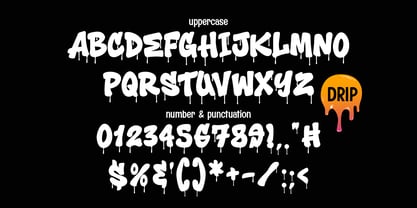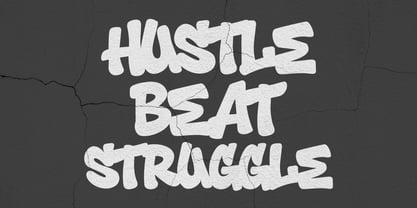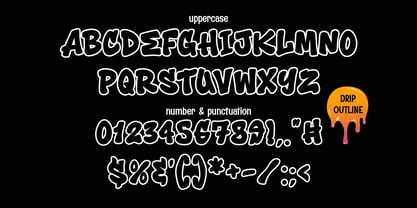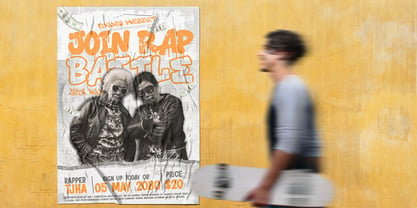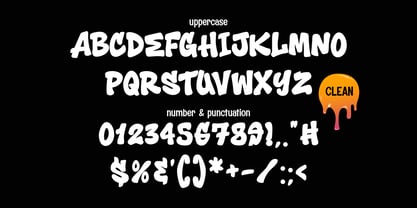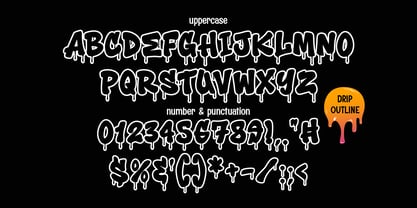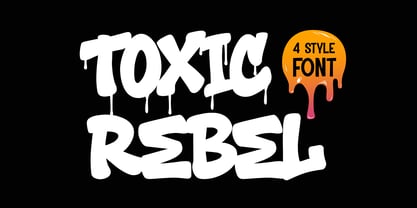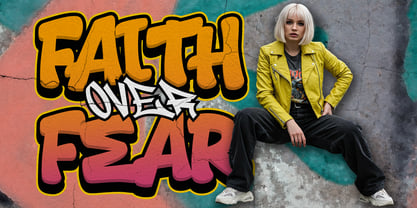
Toxic Rebel
by Sipanji21
The Toxic Rebel Font Family was designed by Sipanji and published by Sipanji21. Toxic Rebel contains 4 styles and family package options. More about this family
Toxic Rebel is a bold graffiti creation that captures the essence of urban street culture with a clean yet rebellious attitude. It comes in four powerful styles — Clean Regular, Drip, Outline Regular, and Outline Drip — giving designers maximum flexibility for any type of project. This combination allows you to choose between solid, bold graffiti strokes, dripping raw energy, or outlined versions that expand creative possibilities. The inspiration behind Toxic Rebel comes from the streets — walls filled with tags, throw-ups, and raw street art energy. By translating that vibe into digital lettering, Toxic Rebel gives creators an authentic tool to bring urban spirit into their designs. The clean regular version is strong and clear, making it perfect for logos and headlines. The drip version adds attitude, giving an instant wild and rebellious street flavor. The outline and outline drip styles expand creativity further, perfect for layering, shadow effects, and standout titles. Toxic Rebel is designed to be cool and simple, but with a striking personality. Whether for apparel, music covers, skate culture branding, event flyers, or social media campaigns, it ensures your design speaks the language of the street. Its versatility makes it an excellent choice not only for urban graffiti projects but also for modern branding, edgy merchandise, and bold advertising. Why Toxic Rebel Stands Out - 4 unique styles: Clean Regular, Drip, Outline Regular, Outline Drip - Perfect balance of simplicity and raw graffiti energy - Usable across print and digital platforms - Great for logos, apparel, posters, social media, and branding - Authentic urban feel with modern usability Use Cases - Streetwear & skate apparel designs - Bold event flyers & posters - Music & hip-hop branding - Digital campaigns & YouTube thumbnails - Logos, packaging, and merchandise Final Thoughts Toxic Rebel was made for creators who want to combine cool urban style with simplicity and impact. It’s rebellious, versatile, and always ready to make a statement.